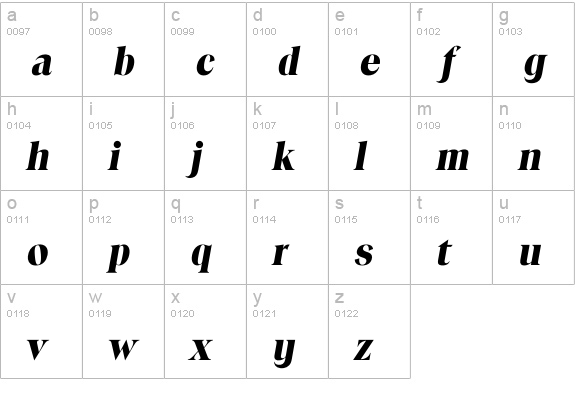
Itoledo Bold is a strong, high-contrast variant in the Itoledo typeface family \xE2\x80\x94 well suited to headlines, attention-grabbing titles, and strong calls-to-action.
Introducing Itoledo Bold font, a stunning typeface that exudes boldness and elegance. With its impeccable design and eye-catching curves, this font is perfect for adding a touch of sophistication to any project. Itoledo Bold font is the epitome of modernity and versatility. Its strong and commanding presence demands attention, making it ideal for headlines, titles, logos, and branding materials. Whether you're designing a magazine spread, creating a website, or crafting an eye-catching poster, Itoledo Bold font will effortlessly elevate your design to new heights. One of the most remarkable features of Itoledo Bold font is its ability to convey a sense of authority while still maintaining a sense of style and grace. Its clean lines and well-defined characters ensure legibility, even at smaller sizes. This makes it the perfect choice for body text in brochures, invitations, and other printed materials. What sets Itoledo Bold font apart from the rest is its availability as a free download at FontsMarket.com. Yes, you read that right! This incredible font can be freely accessed and downloaded, allowing you to enhance your creative projects without any additional cost. Whether you're a professional designer or a creative enthusiast, Itoledo Bold font is a must-have in your font library. Its versatility, elegance, and the fact that it can be obtained for free at FontsMarket.com make it an irresistible choice. So go ahead, unleash your creativity, and discover the endless possibilities that Itoledo Bold font has to offer.